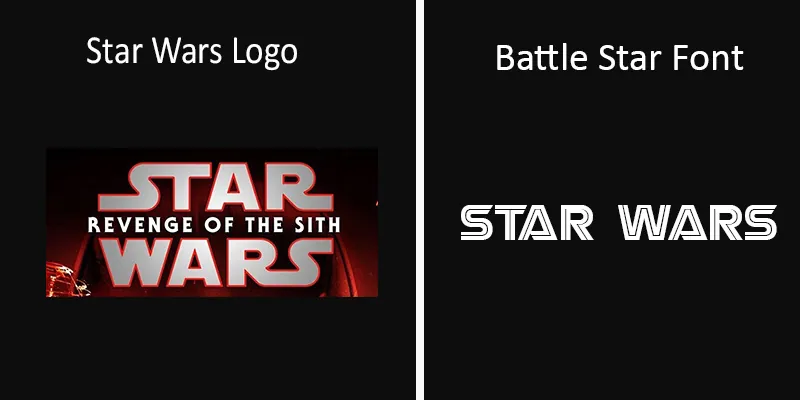
Star Wars is one of the most iconic and influential franchises in the history of cinema, television, and pop culture. The saga created by George Lucas has captivated millions of fans around the world with its epic stories, memorable characters, and stunning visuals. But what about the typography? How did the Star Wars font come to be, and what makes it so distinctive and effective?
In this article, we will explore the origins, evolution, and variations of the Star Wars font, as well as some of the best free Star Wars fonts you can download and use for your own projects. We will also show you how to generate your own Star Wars font preview with our online tool. Whether you are a fan of the original trilogy, the prequels, the sequels, or the spin-offs, you will find something to suit your style and taste.
So, What is the Star Wars Font?
The Star Wars font is a collection of typefaces designed to emulate the distinctive lettering used in the Star Wars movie franchise. These fonts encapsulate the spirit and essence of the Star Wars galaxy, bringing an authentic touch to any project or design. From the iconic opening crawl to the bold logo, each Star Wars font carries a sense of adventure, action, and otherworldly excitement.
What Font is used in the Star Wars Logo?
The logo was designed by a graphic designer named Dan Perri. The logo consists of two words: STAR WARS, written in a stylized way with a perspective effect that creates a sense of depth and movement. It was inspired by two fonts: Futura ND Display and A2 Beckett font.
Futura ND Display is a geometric sans-serif font that was created by Paul Renner in 1932. It is based on simple shapes and has a futuristic look. A2 Beckett font is a serif font that was designed by Henrik Kubel. It is based on the lettering of Samuel Beckett’s manuscripts and has a classic and elegant feel.
Perri combined these two fonts to create a unique and striking logo that reflects the contrast between the old and the new, the traditional and the modern, the light and the dark. He also added some modifications to make the logo more dynamic and expressive, such as extending the horizontal bars of the letters A and R, curving the letter S, and slanting the letter W.
List of Star Wars Fonts
There are many free Star Wars fonts available online that you can download and use for your own projects. Some of them are based on the original Star Wars logo or title fonts used in different films or series. Others are inspired by various aspects of the Star Wars universe, such as characters, planets, ships, weapons, etc.
Here are some of the most popular and interesting Star Wars fonts you can find:
The Most Similar Star Wars Logo Font
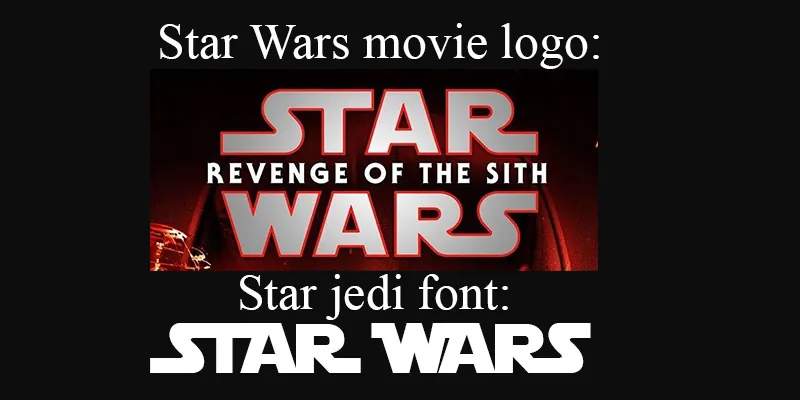
Star Jedi
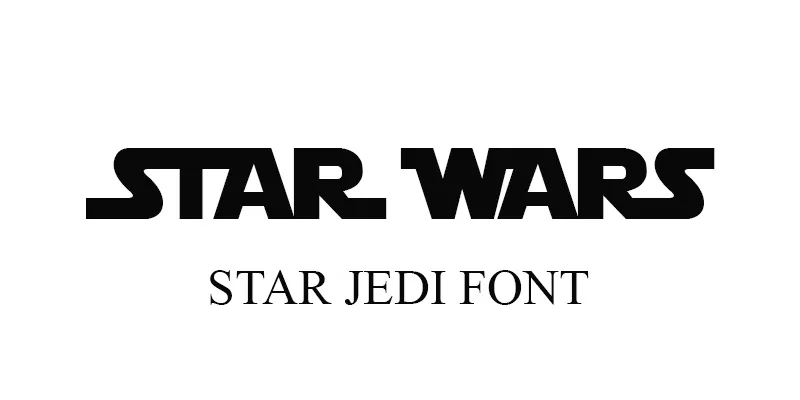
Star Jedi by Boba Fonts is based on the Star Wars movie logo in the opening and end credits. It has a similar perspective effect and shape, but with some variations and additions. It also includes some symbols and icons related to Star Wars.
Star Jedi Outline
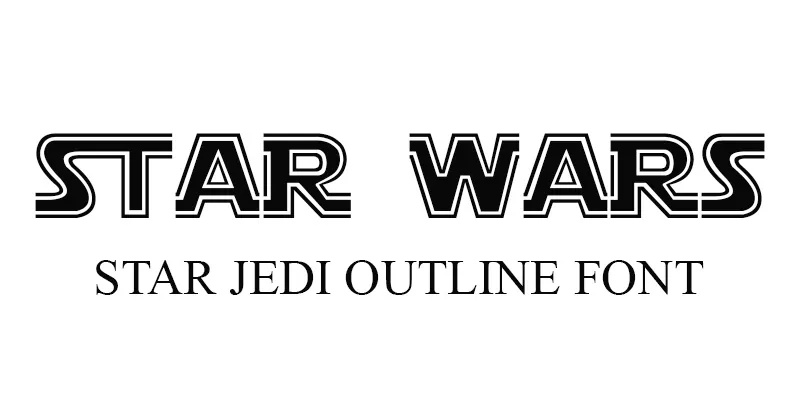
This is another font that is based on the Star wars by Boba Fonts, but with an outline effect. It has a hollow and transparent look, with some shadows and highlights. It also includes some symbols and icons related to Star Wars.
Star Jedi Logo Font
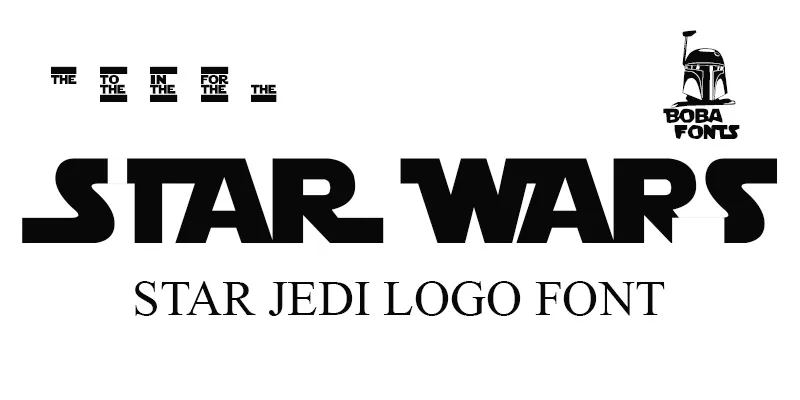
This is a font that is based on the Star Jedi font, but with some modifications to create logos or emblems. It has some letters that are merged or split, creating interesting shapes and effects. It also includes some symbols and icons related to Star Wars.
Star Jedi Special Edition
A modified version of the Star Jedi font with additional style options, allowing for more creative freedom.
Other Available Star Wars Logo Fonts
Futura ND Display
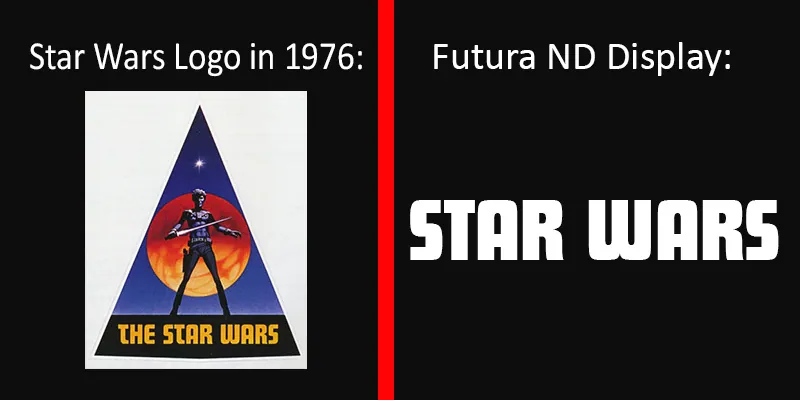
This font resembles the very first Star Wars: A New Hope (1977) movie poster font. It is a geometric sans-serif font that has a clean and modern look. It is suitable for headlines, logos, posters, etc.
A2 Beckett font
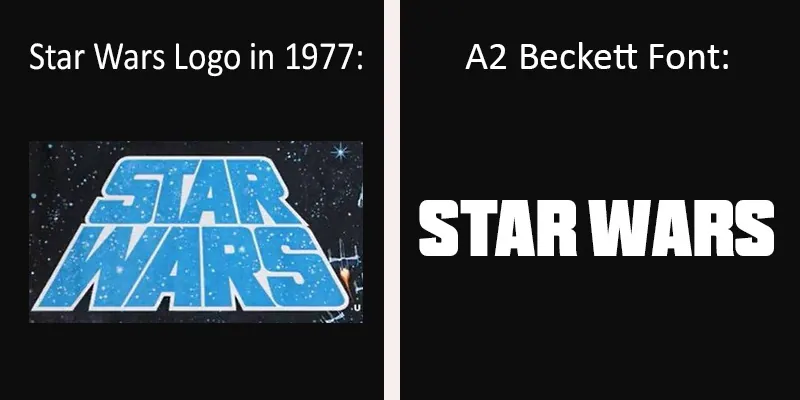
This is another font that matches with the promotional poster font of Star Wars is the A2 Beckett font. It is a serif font that has a classic and elegant look. It is suitable for body text, captions, quotes, etc.
SF Distant Galaxy
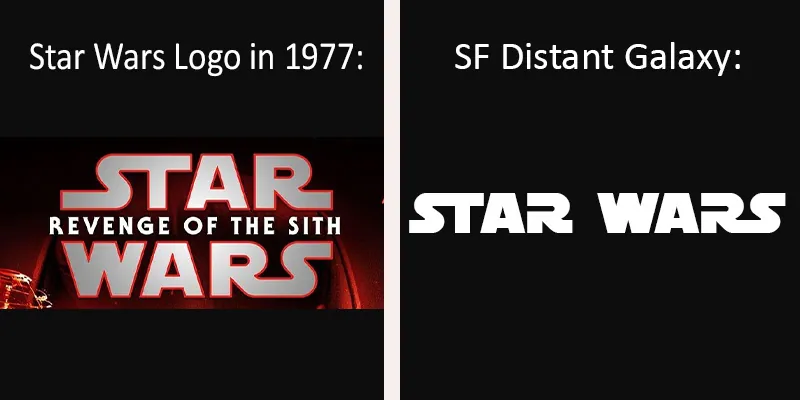
This is a font by ShyFoundry that mimics the style of the original Star Wars logo. It has a perspective effect that creates a sense of depth and movement. It also includes some symbols and icons related to Star Wars.
Death Star
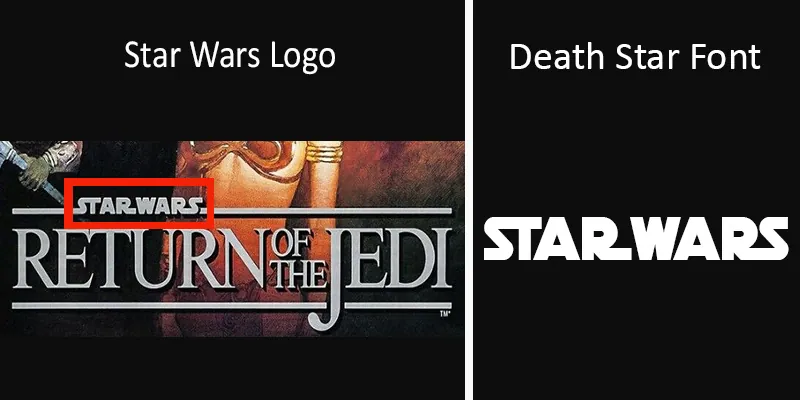
Death Star by sharkshock is inspired by the Death Star, the ultimate weapon of the Galactic Empire. It has a circular and metallic look, with some cracks and holes. It also includes some symbols and icons related to Star Wars.
Soloist
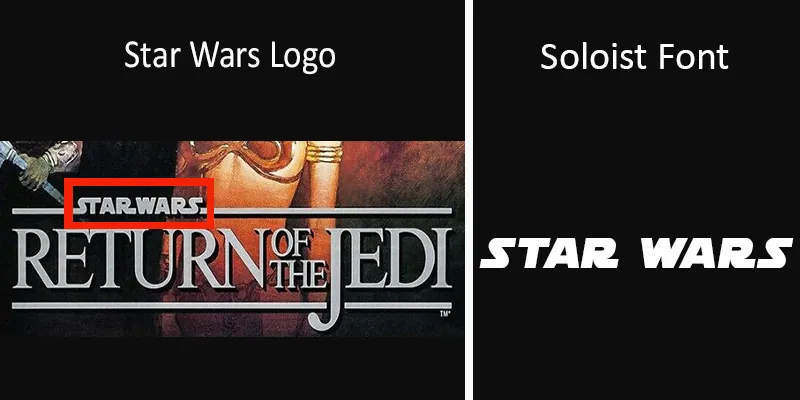
Iconian Fonts presents a font inspired by Han Solo, one of the main characters of the Star Wars saga. It has a rugged and adventurous look, with some scratches and marks. It also includes some symbols and icons related to Star Wars.
Unleash your creativity and explore the vast galaxy of Star Wars fonts! Whether you want to craft your own opening crawl or design captivating Star Wars-themed artwork, these fonts will transport you to a world of adventure and imagination.